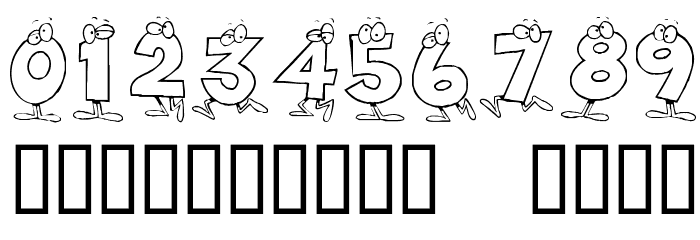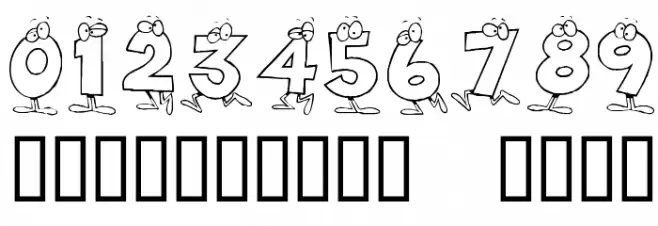
KR Toon Numbers Font
KR Toon Numbers Description
This playful and whimsical font features cartoon-like numbers with expressive eyes and feet, giving each digit a lively personality. The characters are designed to appear as if they are animated, with a sense of movement and fun. The style is bold and rounded, making it highly legible and suitable for children's content or any project that requires a touch of humor and creativity. The font's unique design elements make it stand out, capturing attention with its charming and entertaining appearance.
| Use Case | Logos, Headlines, Children's content |
| Proposed Projects | Ideal for children's books, educational materials, playful branding, and animated videos. |